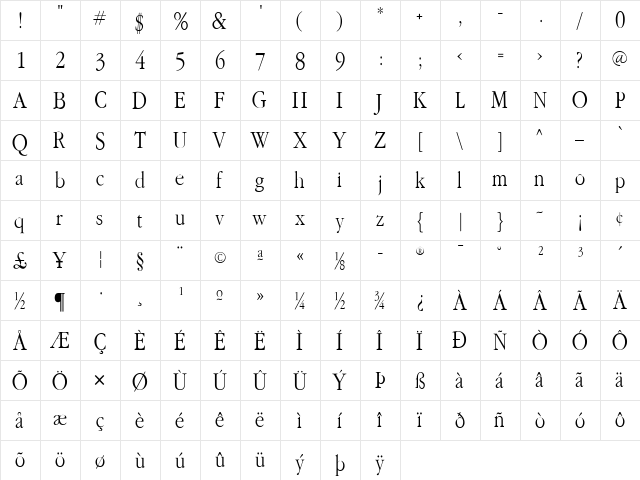
GaramondFLFCond-Roman Regular
Design Context for GaramondFLFCond-Roman Typeface
GaramondFLFCond-Roman offers clean, dependable letterforms without strong stylistic allegiance, making it a practical choice for designers who need flexibility. The condensed width makes it efficient for tight spaces without sacrificing legibility.